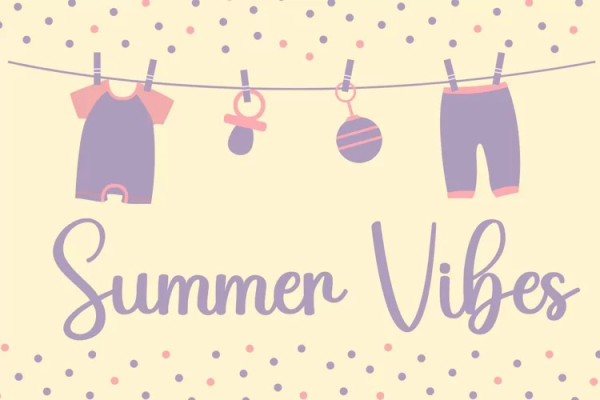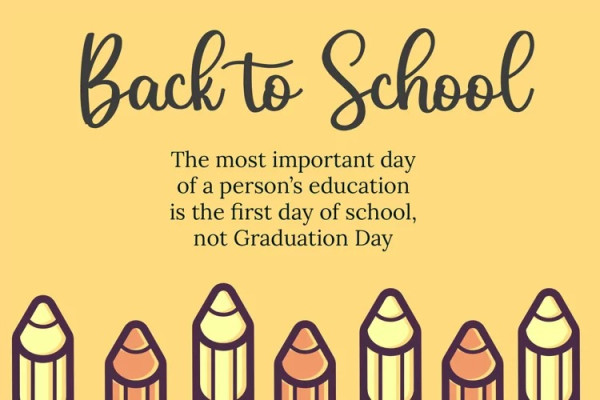
Uncle Farms Font
Uncle Farms Font consists of two fonts designed to complement each other perfectly. Together or apart, these fonts are ideal for adding a chic and cheery touch to your crafts.